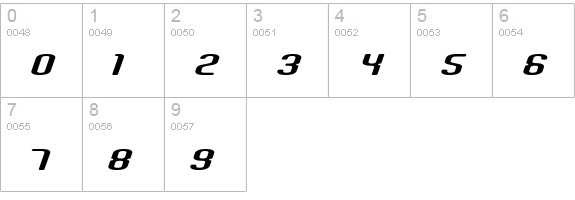
Criminal Italic Font Details
Criminal Italic is a distinctive, italic variant in the Criminal typeface family \xE2\x80\x94 well suited to design and typography projects.
Criminal Italic font is a sleek and stylish typeface designed for those looking to add a touch of edginess to their projects. With its sharp angles and bold presence, this font exudes a sense of mystery and intrigue, making it perfect for branding, logos, and headlines. The italicized version of Criminal font adds a dynamic flair to any design, giving it a modern and contemporary feel. What's even better is that Criminal Italic font is available for free download at FontsMarket.com. Now you can easily access this unique and eye-catching font to enhance your creative projects without breaking the bank. Don't miss out on this opportunity to elevate your designs with the free Criminal Italic font from FontsMarket.com.